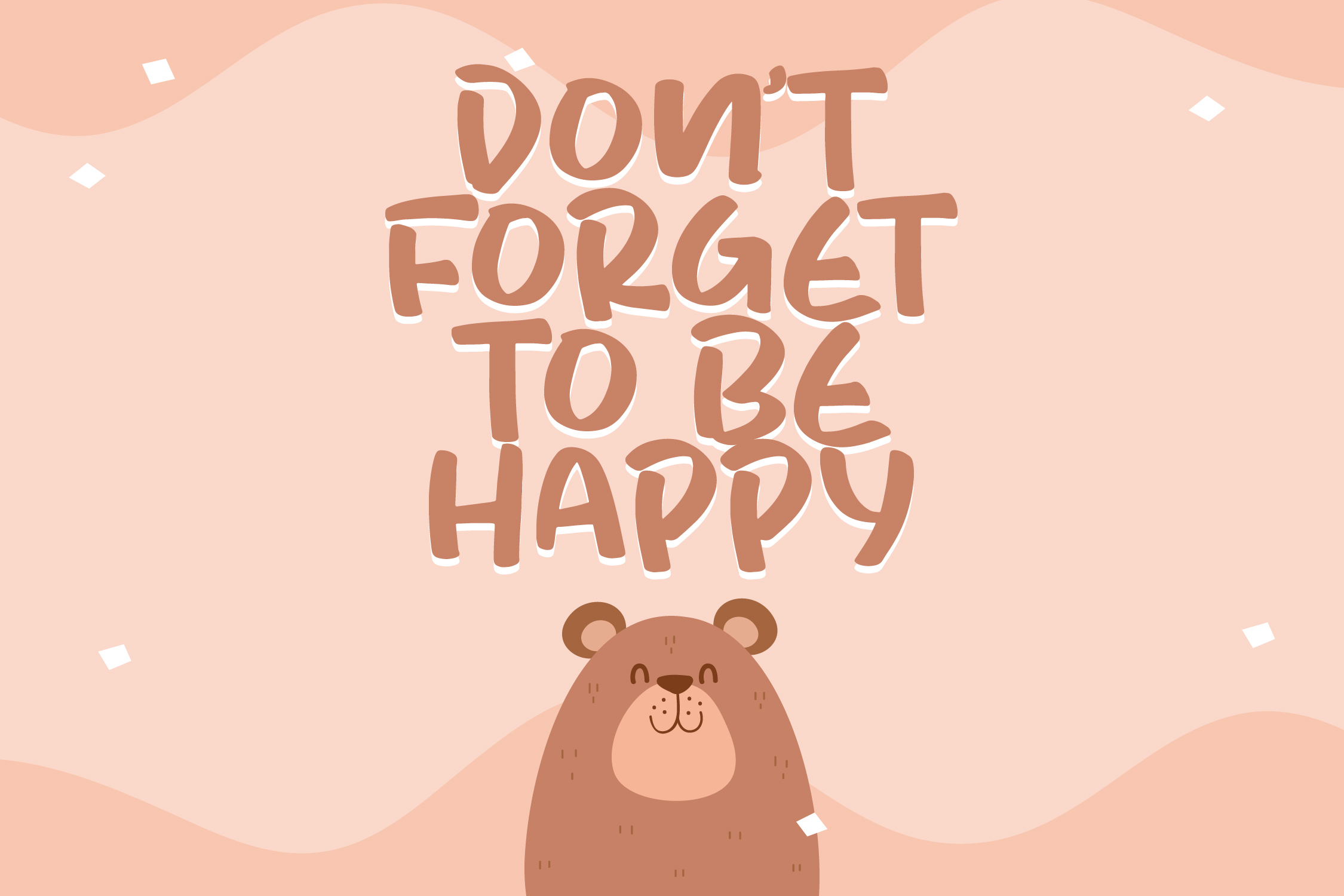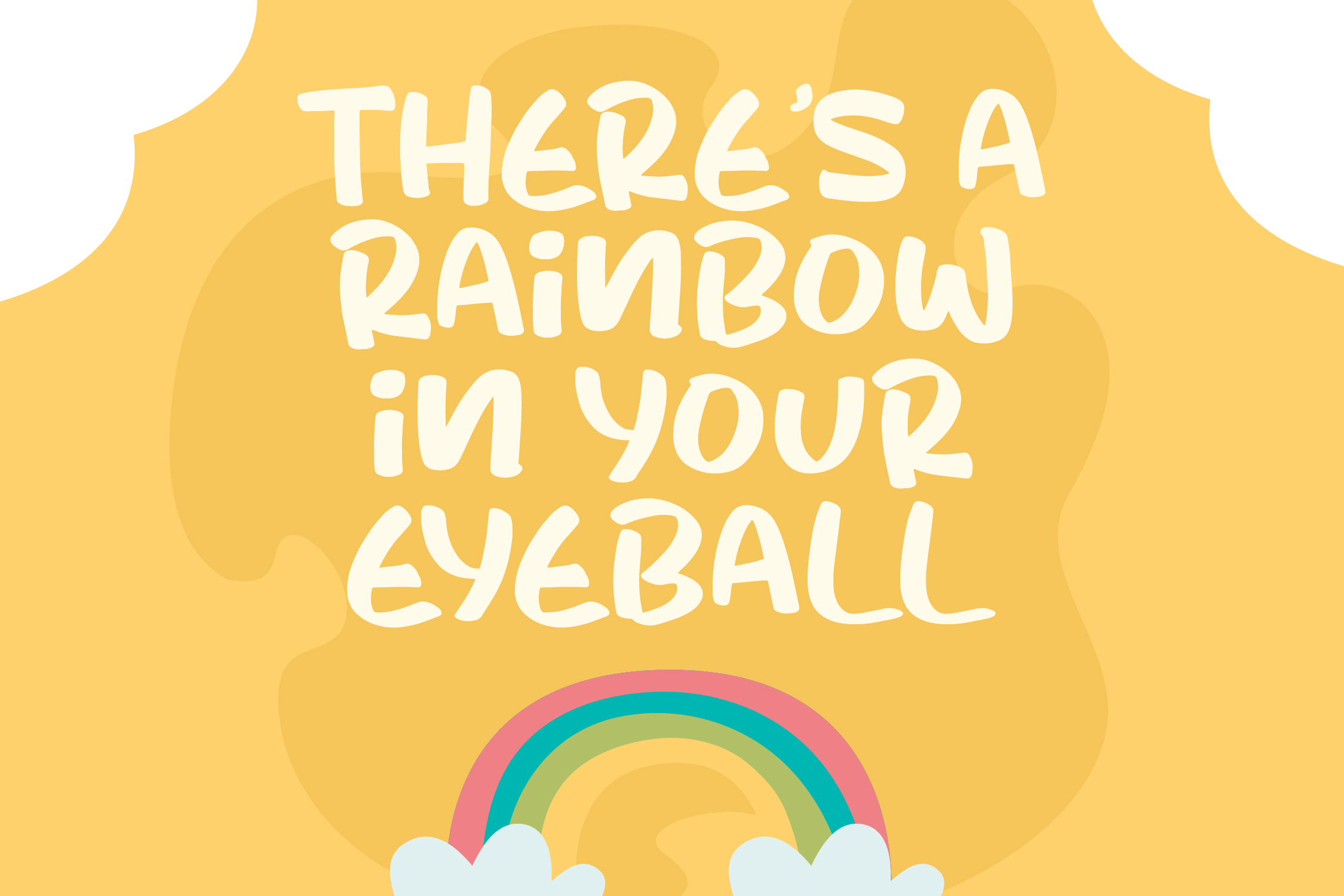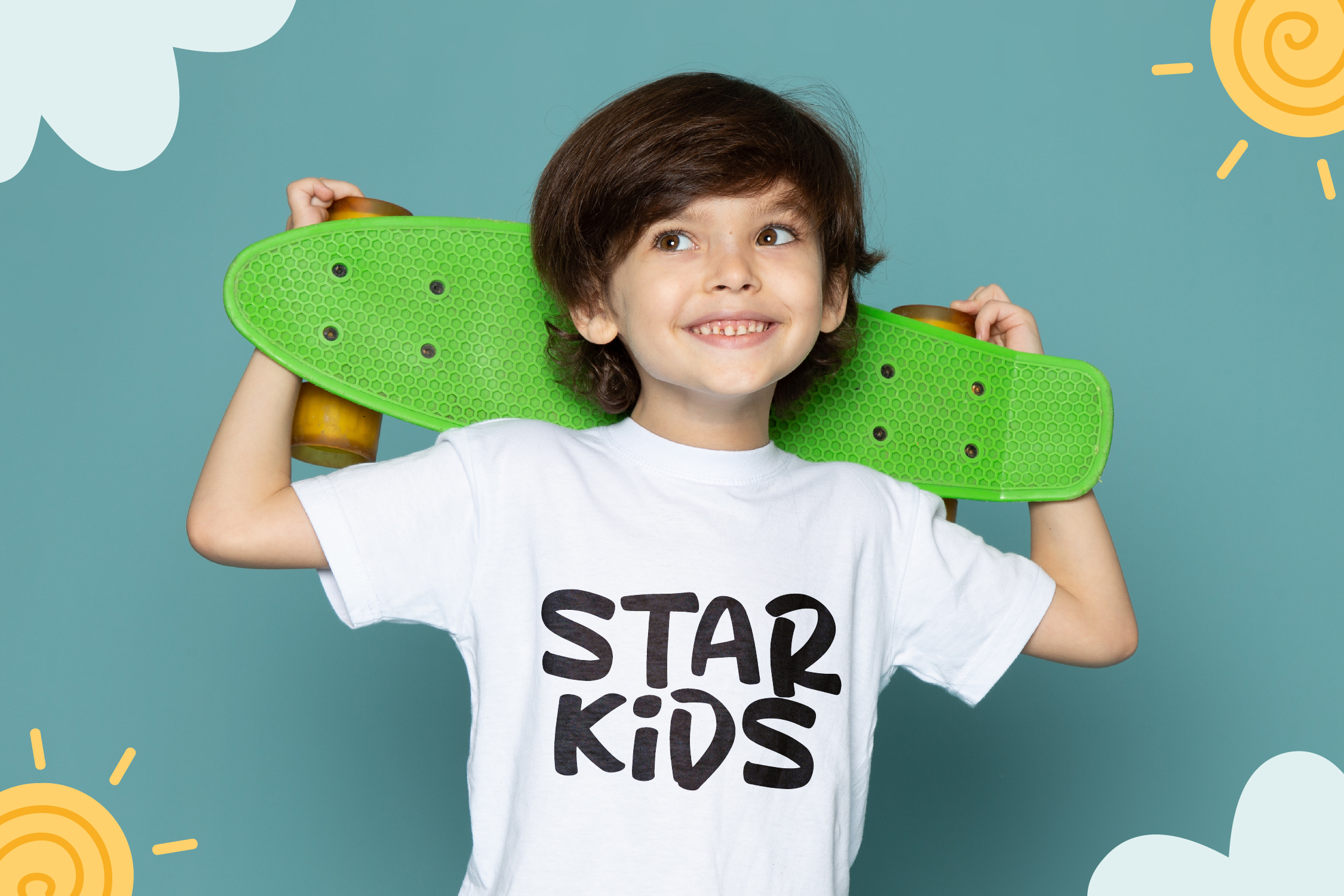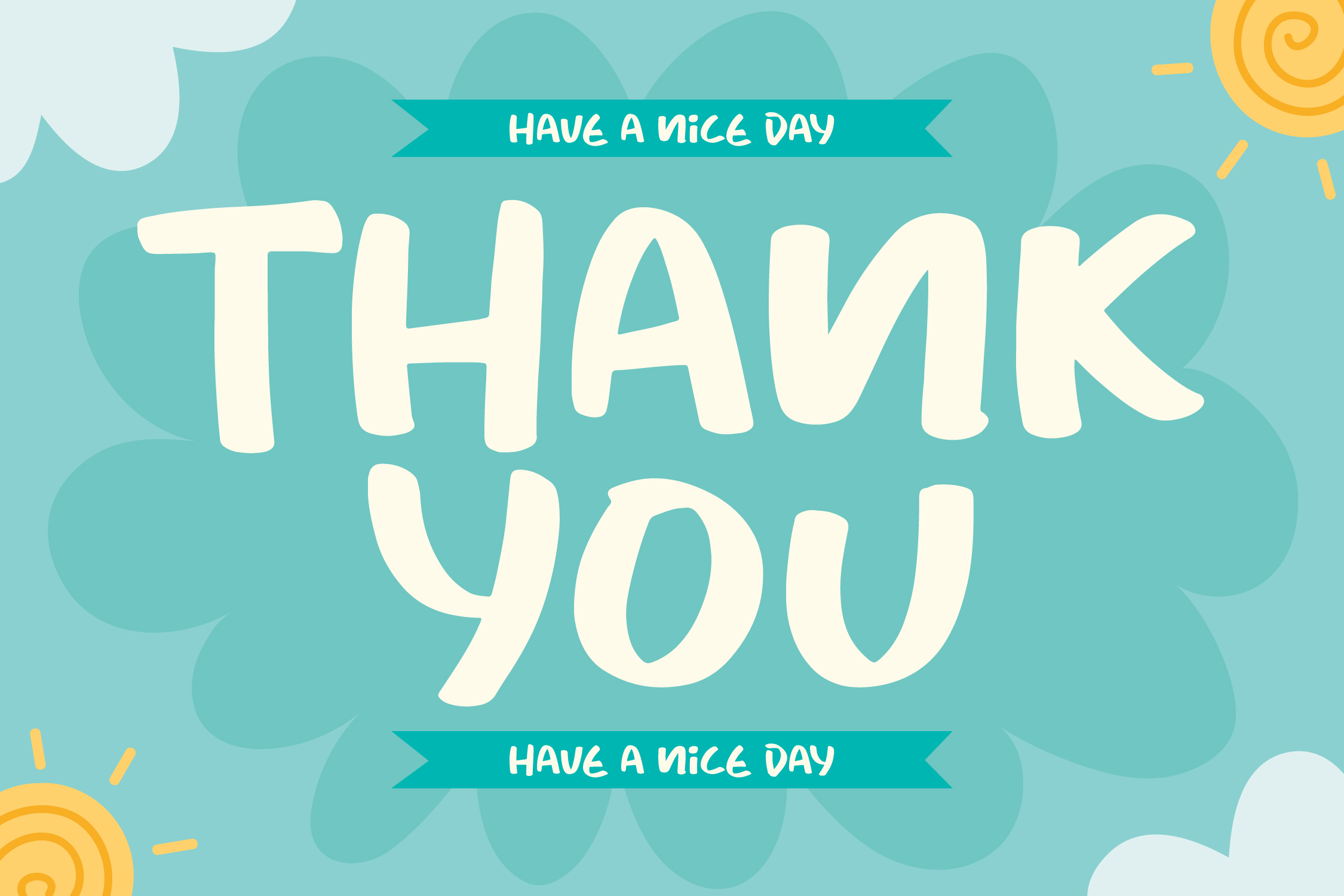
King Bird Font
King Bird Display Font
It’s a Display Bold Font, suitable for any projects such as: logos, branding projects, homeware designs, product packaging, mugs, quotes, posters, shopping bags, t-shirts, book covers, name card, invitation cards, greeting cards, label, photography, watermark, special events, and all your other lovely projects that need a beautiful script taste.